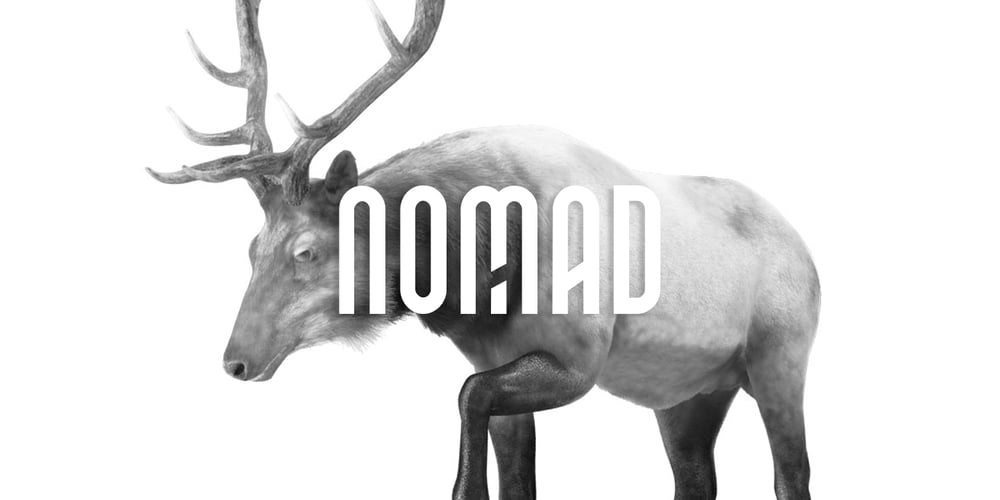
Nomad Display Font Family was designed by Jean Johnson and published by Designova. Nomad Display contains 6 styles and family package options. NOMAD is the unique all-caps display typeface particularly dedicated to display/headline/branding/logotype usage. NOMAD will be best suited for creating nicely-looking logos, brand identities and headlines. Just see the demo images given above for an abstract idea about the capability of this typeface.